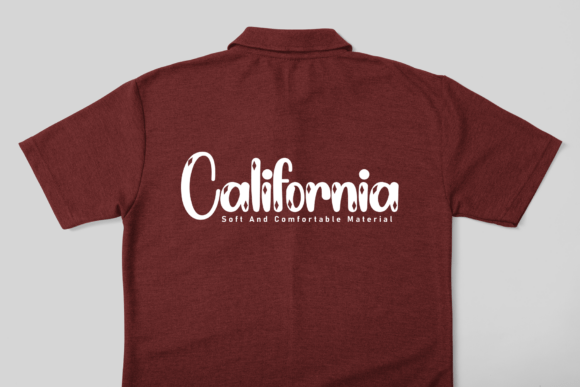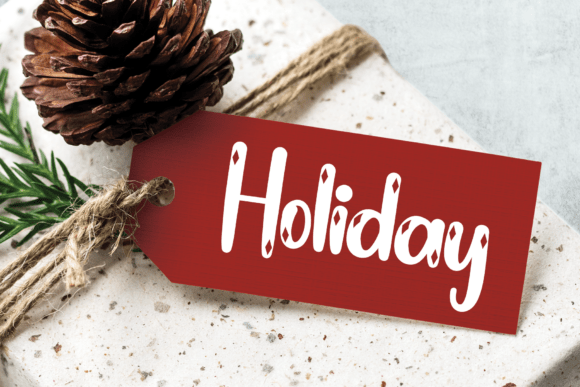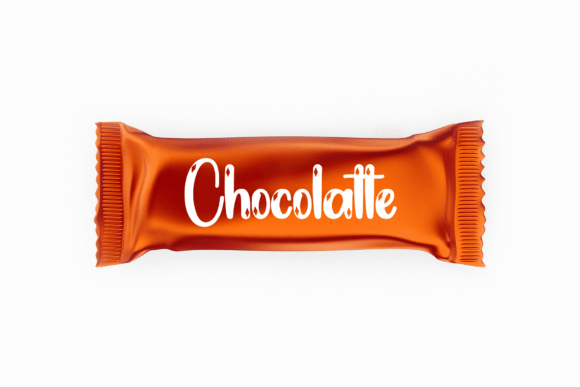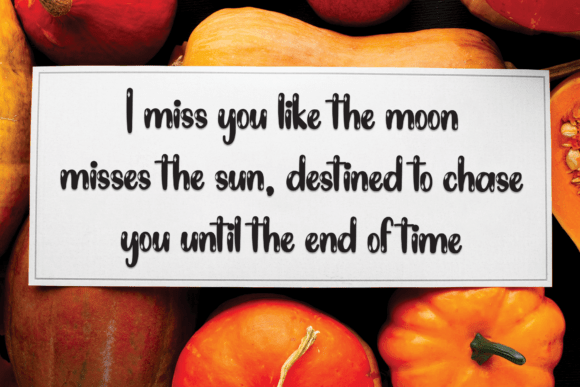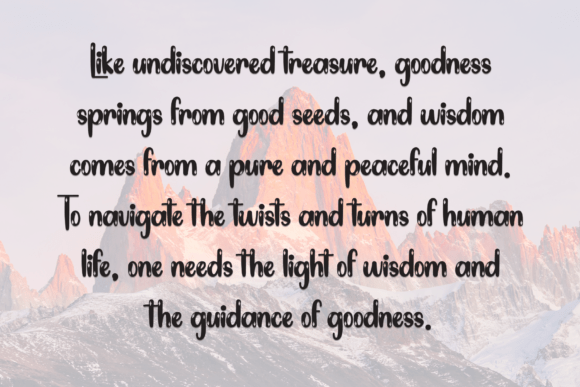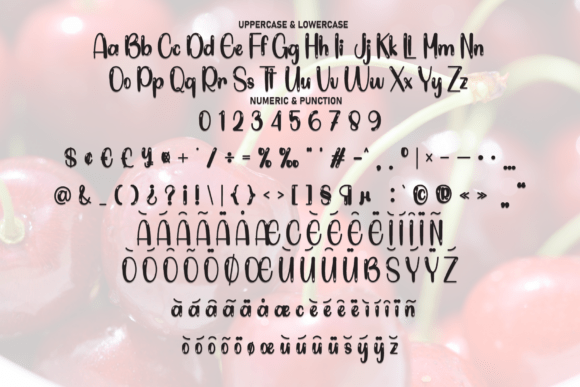
Unveiling ‘Sweet Friendliness’: The Cherry Font That’s Stealing Hearts
In the world of typography, few fonts manage to capture the essence of creativity and whimsy quite like ‘Sweet Friendliness’, affectionately known as the Cherry Font. This hand-sketched display typeface has been making waves among designers and crafters alike, and for good reason. Its unique blend of subdued grace and alluring appeal makes it the perfect addition to any project that demands a sprinkle of joy and polished nonchalance.
The Story Behind Sweet Friendliness
Sweet Friendliness is more than just a font – it’s an experience. It evokes memories of secret messages etched on tree barks or playful scribbles in a school notebook. This font is an homage to the joyous potency of inventiveness, touching every letter with its irresistibly charming personality. Whether you’re a designer, crafter, or simply someone who appreciates the beauty of typography, Sweet Friendliness is sure to captivate.
What Makes Sweet Friendliness So Special?
So, what sets Sweet Friendliness apart from other fonts? For starters, its hand-sketched design gives it a unique, organic feel that’s hard to replicate with digital fonts. The subtle imperfections and quirks of the font make it feel approachable and friendly, perfect for projects that require a personal touch.
Another key feature of Sweet Friendliness is its versatility. This font can be used for a wide range of projects, from whimsical wedding invite designs to artistically-pleasing cards and more. Whether you’re looking to add a touch of elegance or a dash of playfulness, Sweet Friendliness is the perfect choice.
Using Sweet Friendliness in Your Designs
Here are just a few ideas for using Sweet Friendliness in your designs:
- Wedding invitations: Add a touch of whimsy and romance to your wedding invites with Sweet Friendliness.
- Greeting cards: Create artistically-pleasing cards for any occasion with this charming font.
- Social media graphics: Add a dash of personality to your social media graphics with Sweet Friendliness.
- Branding: Use Sweet Friendliness to create a unique and memorable brand identity.
The Benefits of Using Sweet Friendliness
So, why choose Sweet Friendliness over other fonts? Here are just a few benefits of using this charming font:
- Unique and memorable: Sweet Friendliness is a one-of-a-kind font that’s sure to make your designs stand out.
- Versatile: This font can be used for a wide range of projects, from formal to informal.
- Evokes emotion: This font has a way of evoking nostalgia and warmth, making it perfect for projects that require a personal touch.
In conclusion, Sweet Friendliness – or the Cherry Font – is a game-changer for designers and crafters alike. Its unique blend of subdued grace and alluring appeal makes it the perfect addition to any project that demands a sprinkle of joy and polished nonchalance. Whether you’re looking to create whimsical wedding invite designs, artistically-pleasing cards, or simply want to add a touch of personality to your social media graphics, Sweet Friendliness is the perfect choice. So why not give it a try and see the magic for yourself?
With Sweet Friendliness, you can:
- Create unique and memorable designs that stand out from the crowd.
- Add a touch of personality to your projects.
- Evoke nostalgia and warmth in your designs.